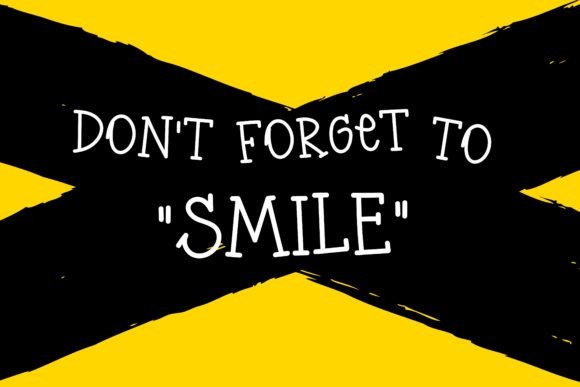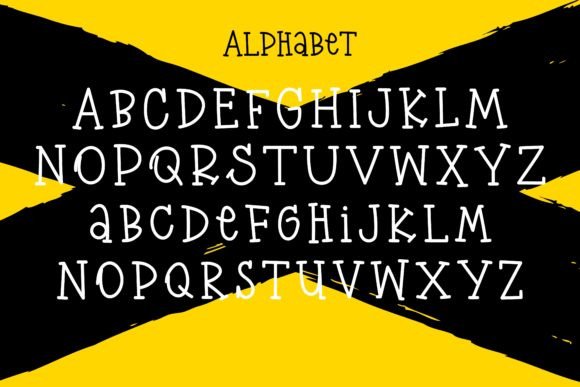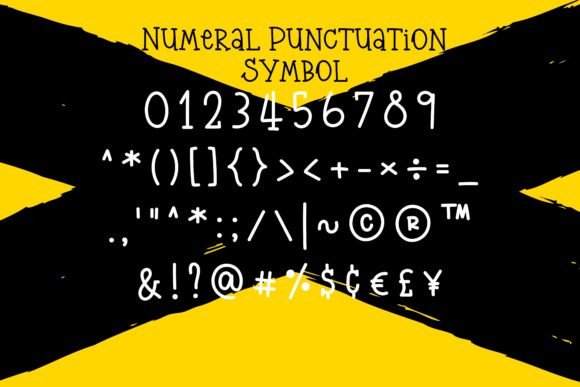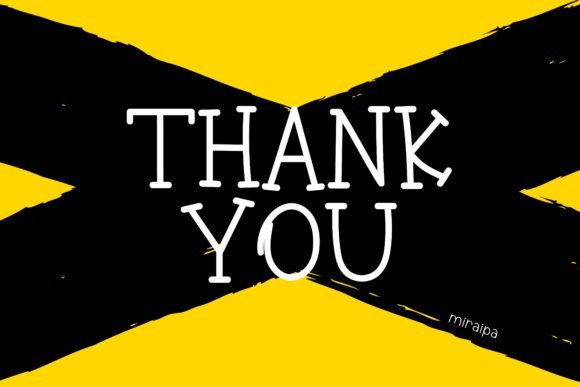
Introduction to Monday Dinner Font
Monday Dinner is a cute and friendly handwritten serif font.
Whimsical and a bit quirky, this font will brighten up each of your designs .
Key Features of Monday Dinner Font
Why Choose Monday Dinner Font?
Monday Dinner Font offers exceptional quality and versatility, making it a valuable addition to your design toolkit. Whether you’re creating for personal projects or commercial use, Monday Dinner Font delivers professional results.